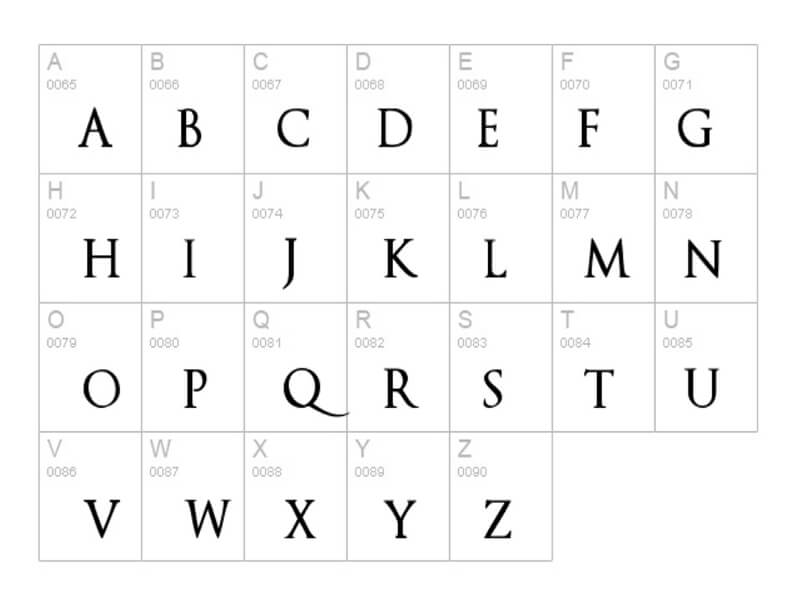
Dark Souls Font Generator
Dark Souls Font Generator. This game that is a spiritual. Select a font by clicking on the font name, eg.
In this souls like name generator, you can generate random male or female names to get some ideas and inspiration. The font family also comes in regular, italic, bold and light forms. You can use the dark souls font generator to create different dark souls font designs free of cost.
You can choose a different color and font style for each line of text. This game that is a spiritual. Introducing dark souls font family!
You can apply the font in all the specified positions and. Dark souls you died meme. Adobe garamond bold is a stunning version of the popular garamond typeface.
Dark Soul Font Is A Gaming Typeface Employed On The Title Of The Gaming Series Dark Souls.
Dark souls is an action video game developed by fromsoftware. You can use the dark souls font generator to create different dark souls font designs free of cost. Dark souls is designed in adobe garamond bold.